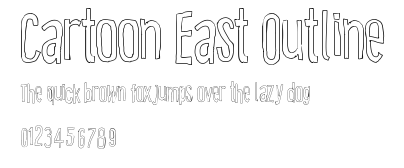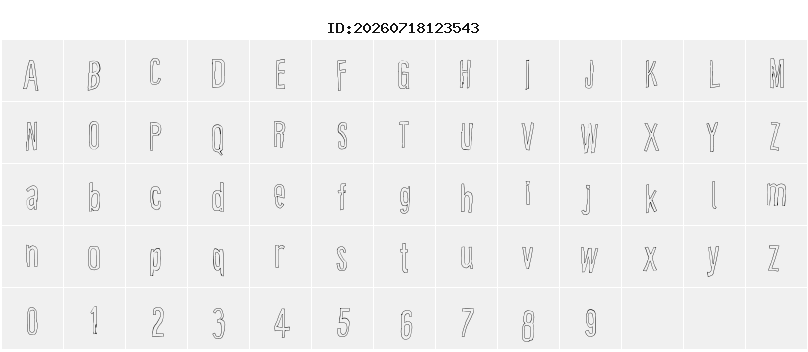
• Font Name: Cartoon East Outline
• Full Font Name: Cartoon East Outline
• Designer: Galdino Otten
About Cartoon East Outline.ttf
Cartoon East Outline.ttf is a modern, elegant sans-serif font designed for ultimate readability and visual harmony. Perfect for branding, headlines, web design, and print materials.